Greener type
Notice anything different? iLT has gone green. In addition I have a new masthead. For more than a year, one of my all-time favourite typefaces has graced the head of these pages; but it’s time for a change. I had given some thought to a complete redesign, but then I asked myself, why? So, I’ve chosen not to redesign just for the sake of it. Instead, I’ve made some relatively minor changes, including the menu at the very top, tweaks to the sidebar, and swapping out the red for a little green. Now who can name the typeface?
OK, on with the show. Let’s start out with some more green. This lovely poster from ColorCubic:
And this even more impressive piece:
A little grid goodness, and the redesign of Unit Interactive:
Next up is a typeface that, when it was first released, I pretty much ignored. But after taking a closer look, thanks to Stephen Coles’ excellent review of FF Tisa, I’ve really warmed to it:
Greg Meadows has taken some more great found type photos. A walk through the boneyard gave us these:
Some interesting type experiments:
Like this alphabet from Margus Tamm. Parasite Typography:
New typefaces
Great to see a new type from Jonathan Barnbrook and co. Inspired by those monster 19th century ad slabs, Regime has some lovely little quirks and a number of additional experimental characters and alternates (really like the alternate g and Q, in particular).
New from Sudtipos is Kewl Script:
And Sugar Pie, which grew out of an ‘italic’ version of the hugely popular Candy Script.
Ubiquitous typefaces often lose their edge; Gotham, despite its use everywhere and in just about everything, hasn’t. To me, it remains as good — if not better-looking — than it ever did. And what’s more, the Gotham family benefits from some new additions, including Narrow, Extra Narrow, and Condensed:
Some nice type treatments in this video (though it’s a little too long):
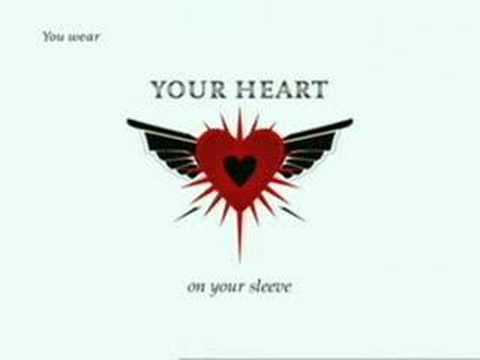
Tees from Magpie Studio:
Really like Peter Hoffmann’s GlasHaus:
The cover of today’s Sun Herald:
I’m keen to get my hands on a copy of the latest issue of How magazine. Stephen Coles writes on Cure for the Common Font:
As I approach my 40th birthday (ouch!) this is particularly poignant. Youth by Julien De Repentigny:
The outstanding paper-form lettering of Russian born Yulia Brodskaya:
Great 3D type, colour palette and texture in this poster from Mike Harpin:
If you read Japanese, then you’ll enjoy the latest issue of Web Designing. Not just because I wrote for it, but because the whole issue is devoted to typography.
Hicks Design has done a great job on the icons for FontExplorer Pro:
Just love this 50s Chevrolet ad spread:
Some new and great pieces from Cristiana Couceiro:
New book
This one is at the top of my shopping list. Adrian Frutiger — typefaces: the complete works
Here are some recommended type-related RSS feeds. You can download the OPML file (save it, then import into your RSS reader of choice). I’ve heard some say that they struggle to keep up with the RSS feeds they presently subscribe to. But RSS is not about reading every single post. The strength of RSS is that, at a glance, you have all the titles of all the posts; you only need read those that pique your interest. If you believe there are others worthy of inclusion, then let me know in the comments. Remember, only type-related blogs.
And finally …
Will someone please correct this young lady on her misconceptions about Arial.
A brilliant article on diacritics by David Březina.